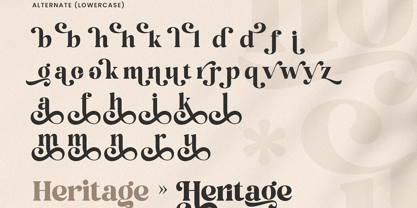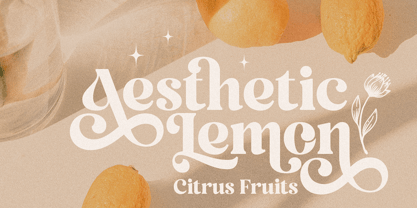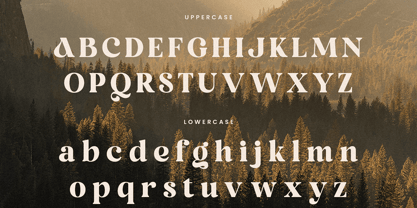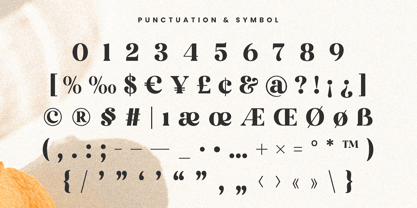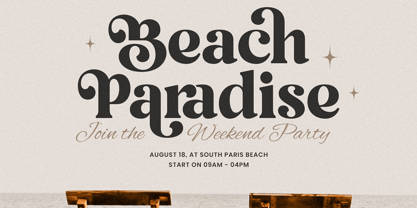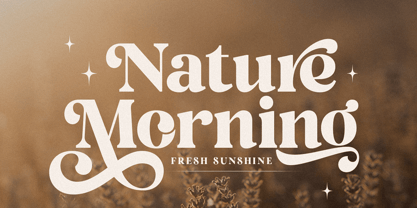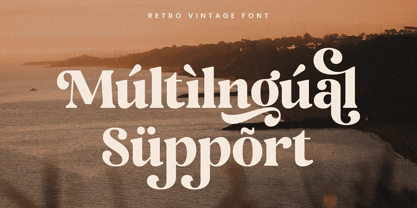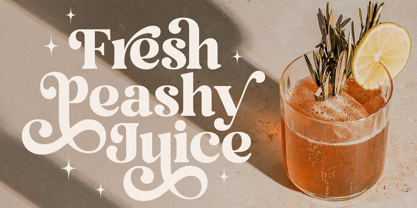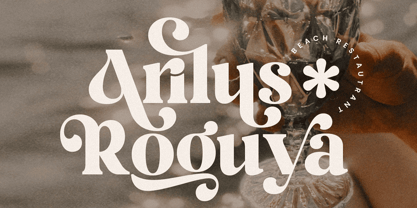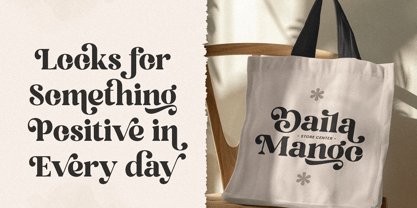
Breluna
by Only Fonts
The Breluna Font Family was designed by Olivia Love and published by Only Fonts. Breluna contains 1 styles. More about this family
Breluna – Retro Vintage Font Breluna is a timeless retro vintage font designed to capture the warmth, charm, and authentic character of classic typography. Drawing inspiration from vintage signage, old storefronts, nostalgic packaging, and mid-century design, Breluna combines bold letterforms with elegant curves to create a distinctive typeface that feels both familiar and refreshingly modern. Each character is meticulously crafted to infuse personality and heritage into your creative projects while ensuring excellent readability. Ideal for retro branding, vintage logos, product packaging, coffee shops, restaurants, apparel, labels, posters, badges, whiskey and craft beer branding, editorial layouts, merchandise, social media graphics, and nostalgic marketing campaigns, Breluna provides a strong visual identity across both print and digital media. Its thoughtfully designed ligatures and alternate characters enable you to create custom typography that feels handcrafted and unique. Breluna is developed for designers who value timeless aesthetics and versatile functionality. The balance between vintage inspiration and modern craftsmanship makes it suitable for everything from classic branding to contemporary projects that require a nostalgic touch. Whether designing for artisan products, lifestyle brands, or creative businesses, Breluna helps you craft memorable visuals filled with warmth, authenticity, and lasting appeal. With its rich personality and premium craftsmanship, Breluna transforms ordinary text into expressive typography that celebrates the beauty of classic design while remaining perfectly suited for today's creative industry. Breluna Font Features: • Retro vintage style with timeless character • Alternate and ligature characters • Uppercase and lowercase letters • Numerals, punctuation, and symbols • OpenType features • Multilingual support • Perfect for logos, branding, packaging, labels, posters, apparel, editorials, and vintage-inspired designs • Suitable for both print and digital projects
Designers: Olivia Love
Foundry: Only Fonts